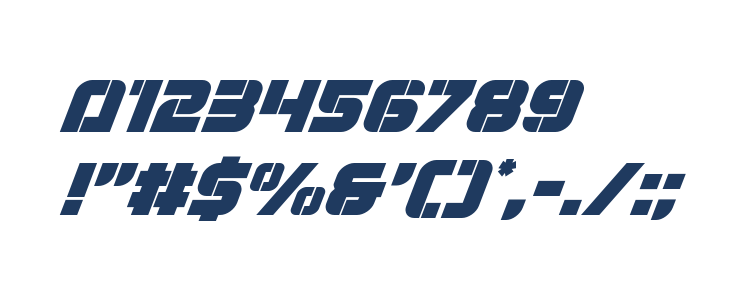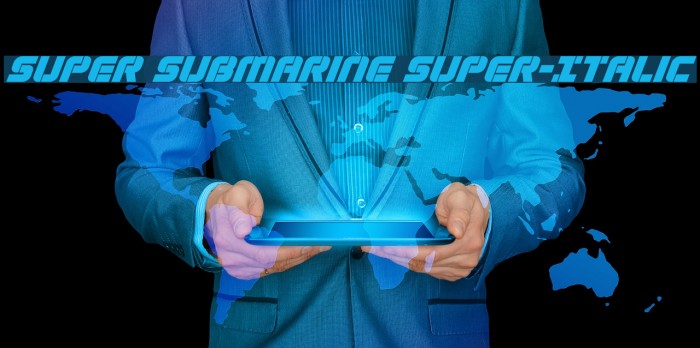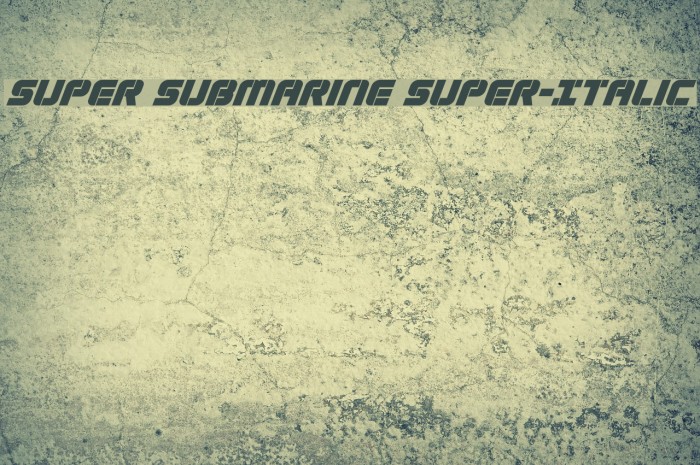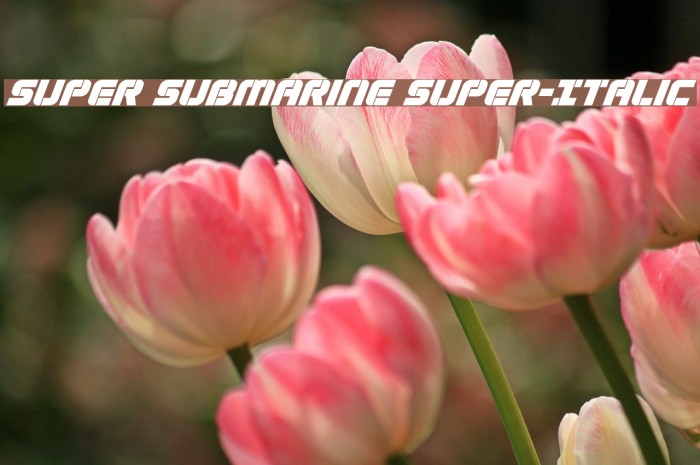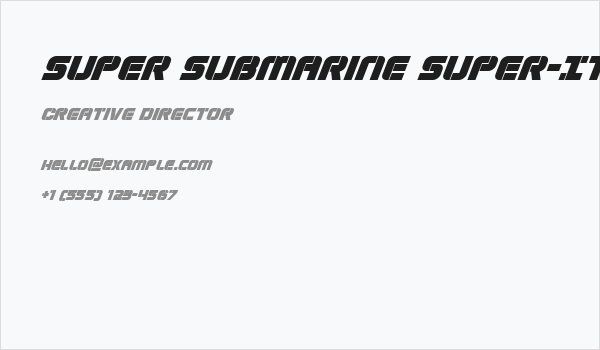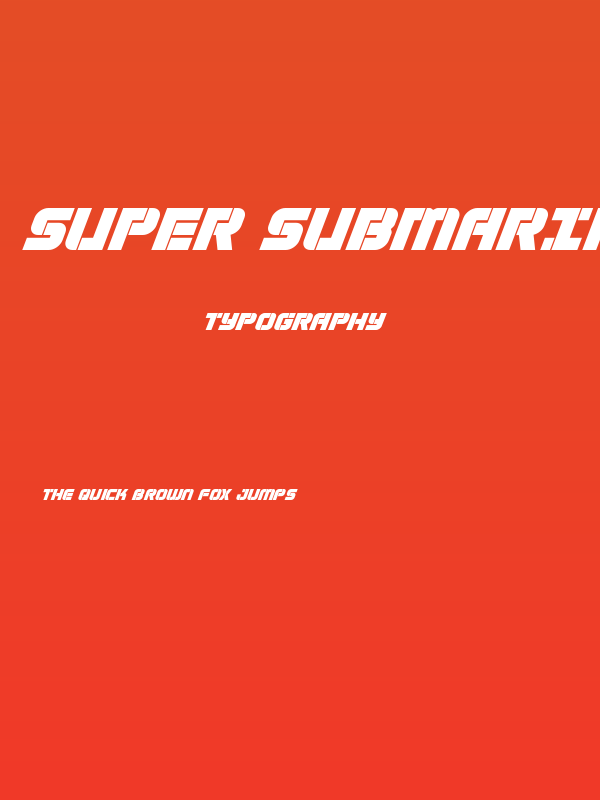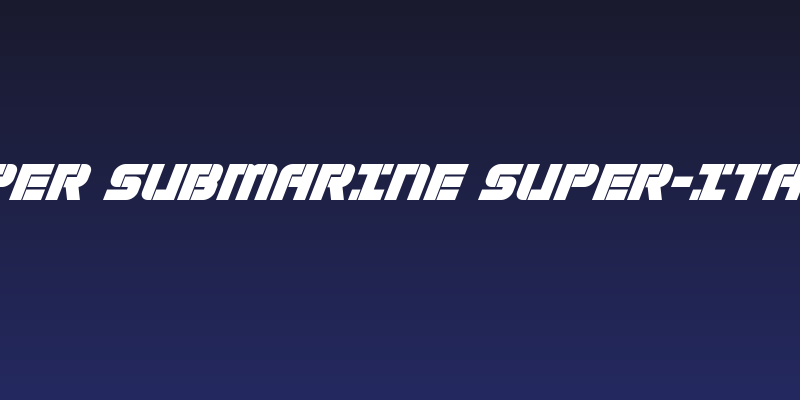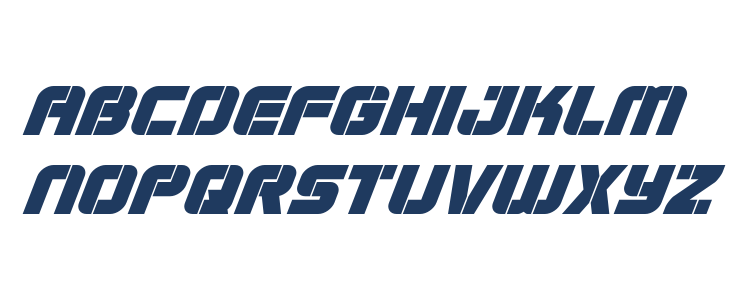
Super Submarine Super-Italic Font
Super Submarine Super-Italic Description
This font features a bold, italicized style with a futuristic and dynamic appearance. The characters are designed with sharp angles and a forward-leaning stance, giving a sense of motion and speed. The uppercase letters are uniform in height, while the numbers and special characters maintain the same boldness and angularity. The font's design is consistent across all characters, with a strong emphasis on geometric shapes and a slightly condensed width, enhancing its modern and sleek look.
| Use Case | Logos, Headlines, Branding |
| Proposed Projects | Ideal for projects that require a modern and energetic feel, such as sports branding, technology logos, or sci-fi themed designs. |